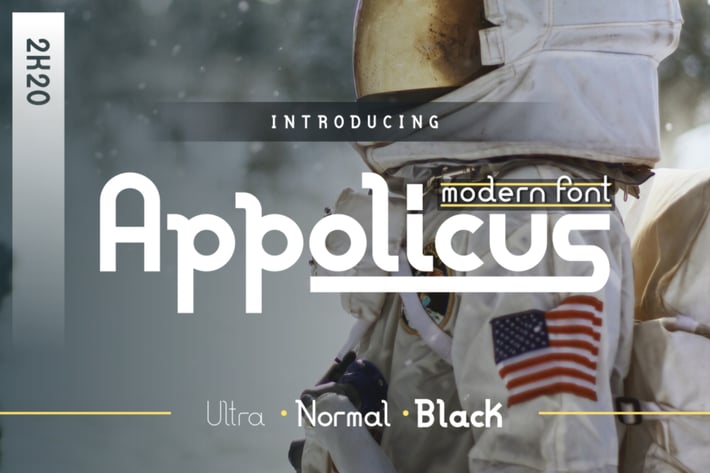
Appolicus - Bold, Regular, Ultra - Modern Font
Appolicus is perfect to use for Logotype, Letterhead, Poster, Apparel Design, Label and etc.
The alternative characters were divided into several features such as Stylistic Alternates and Ligature.